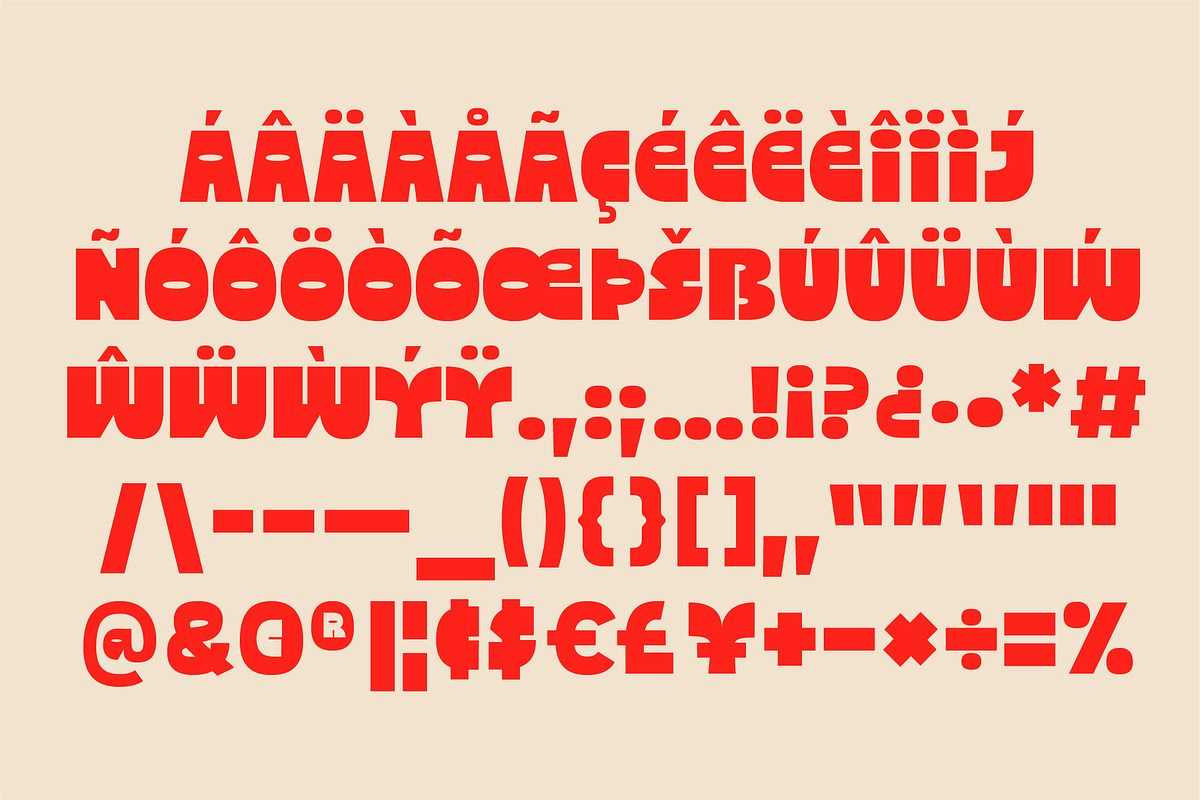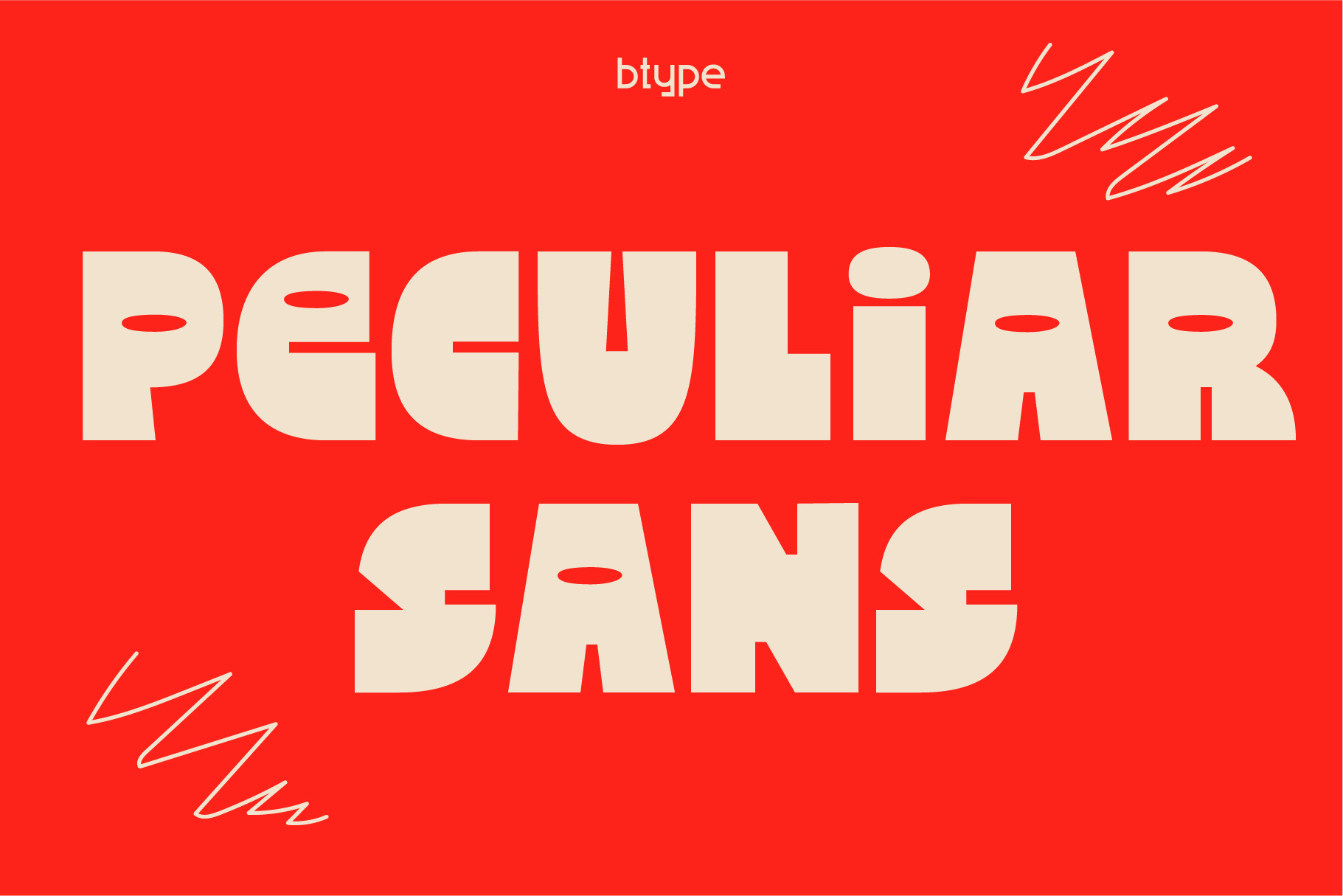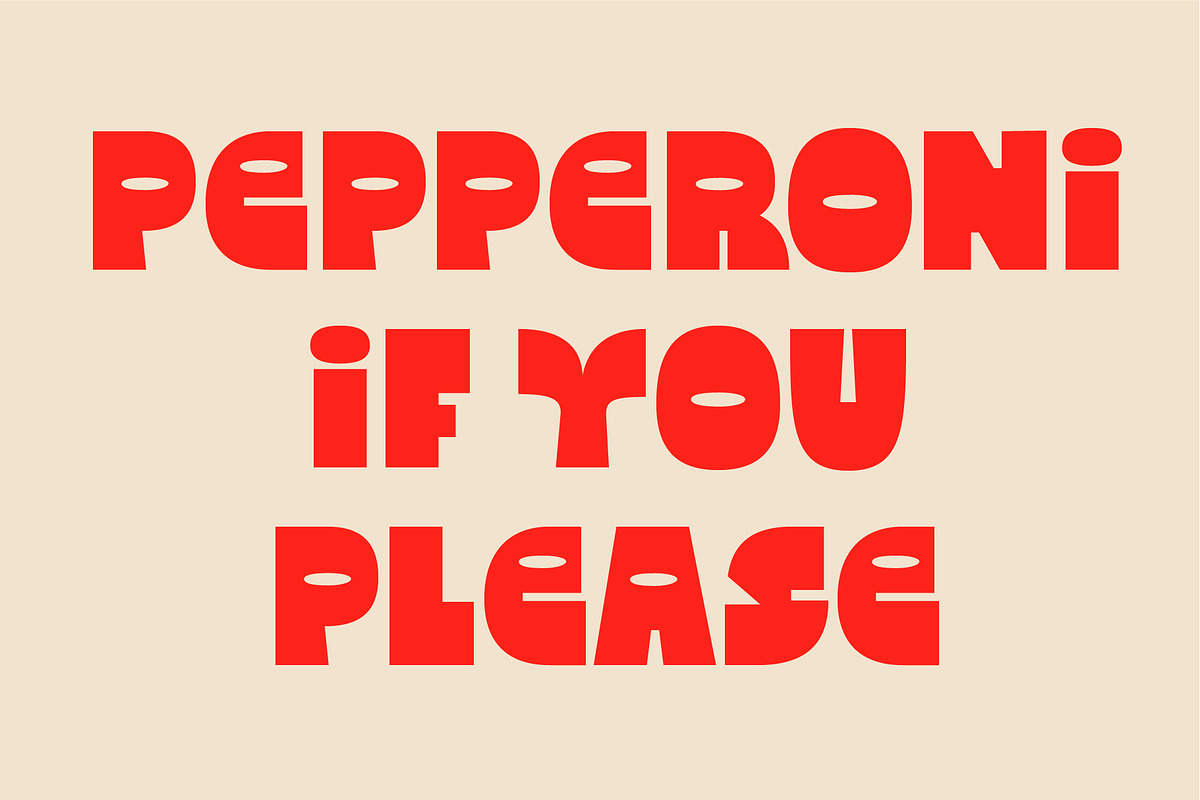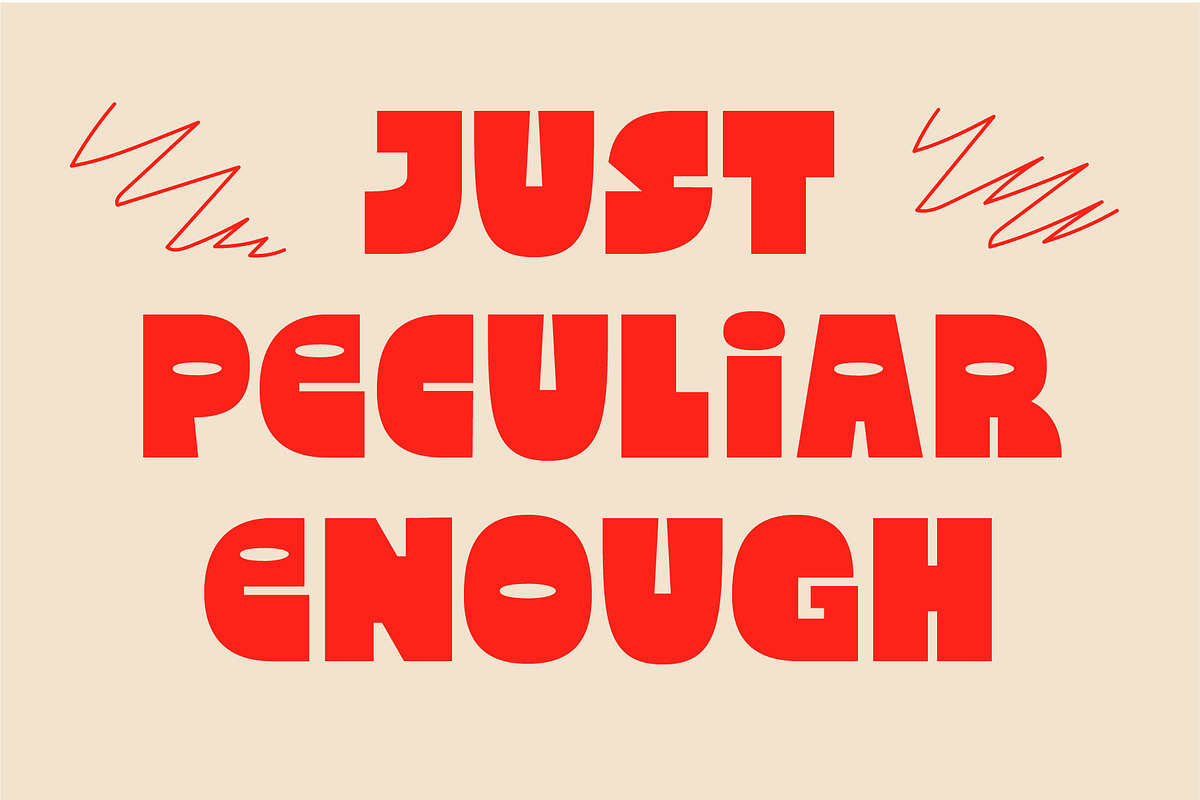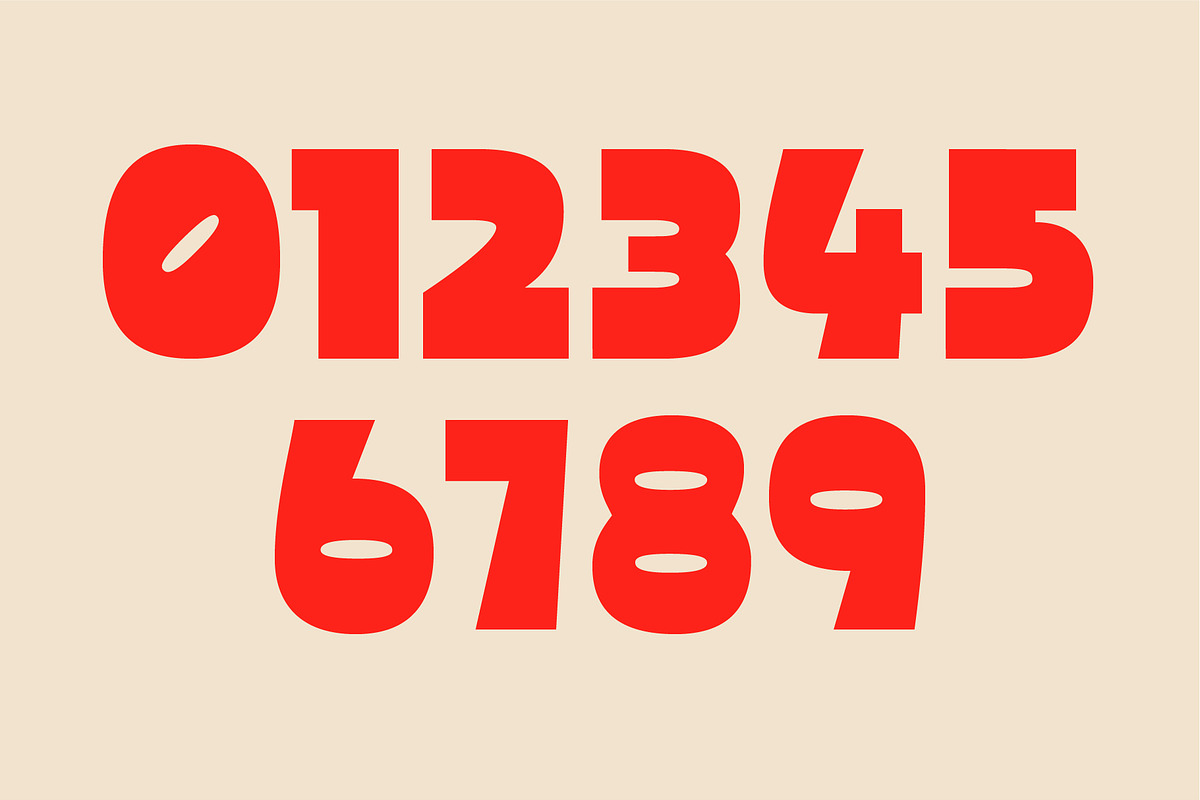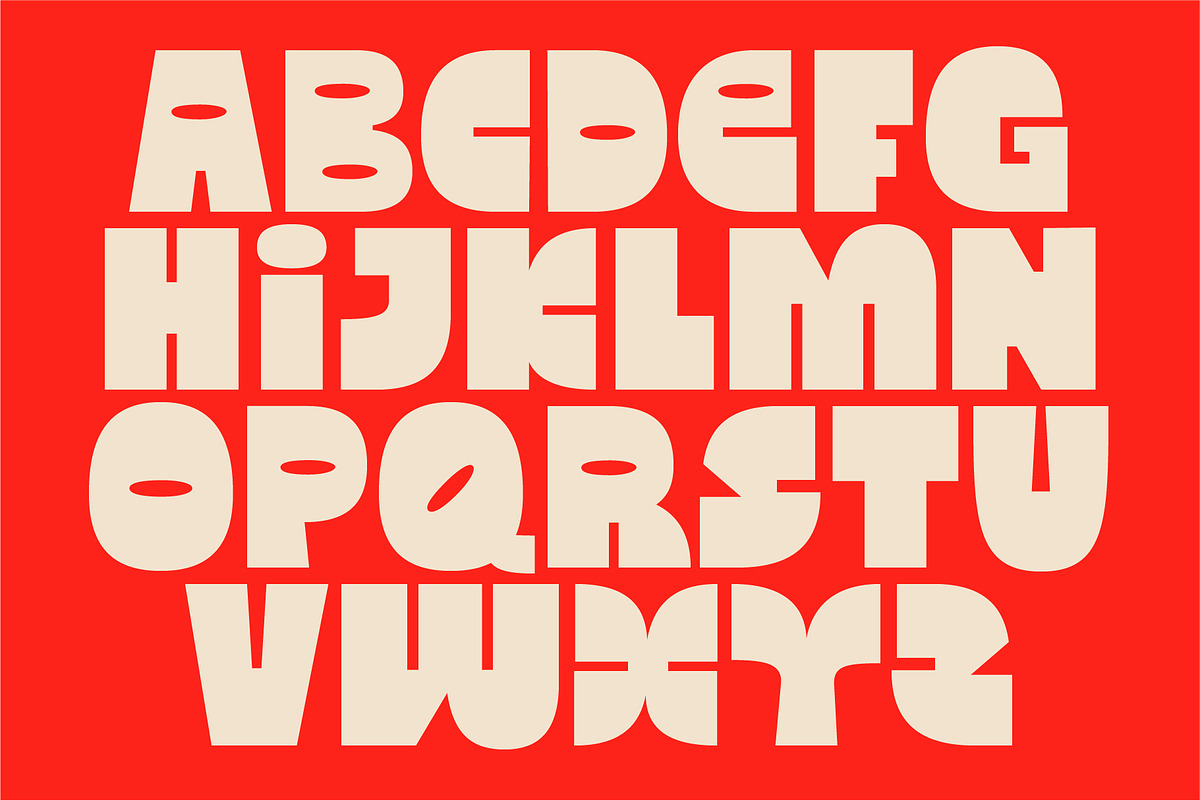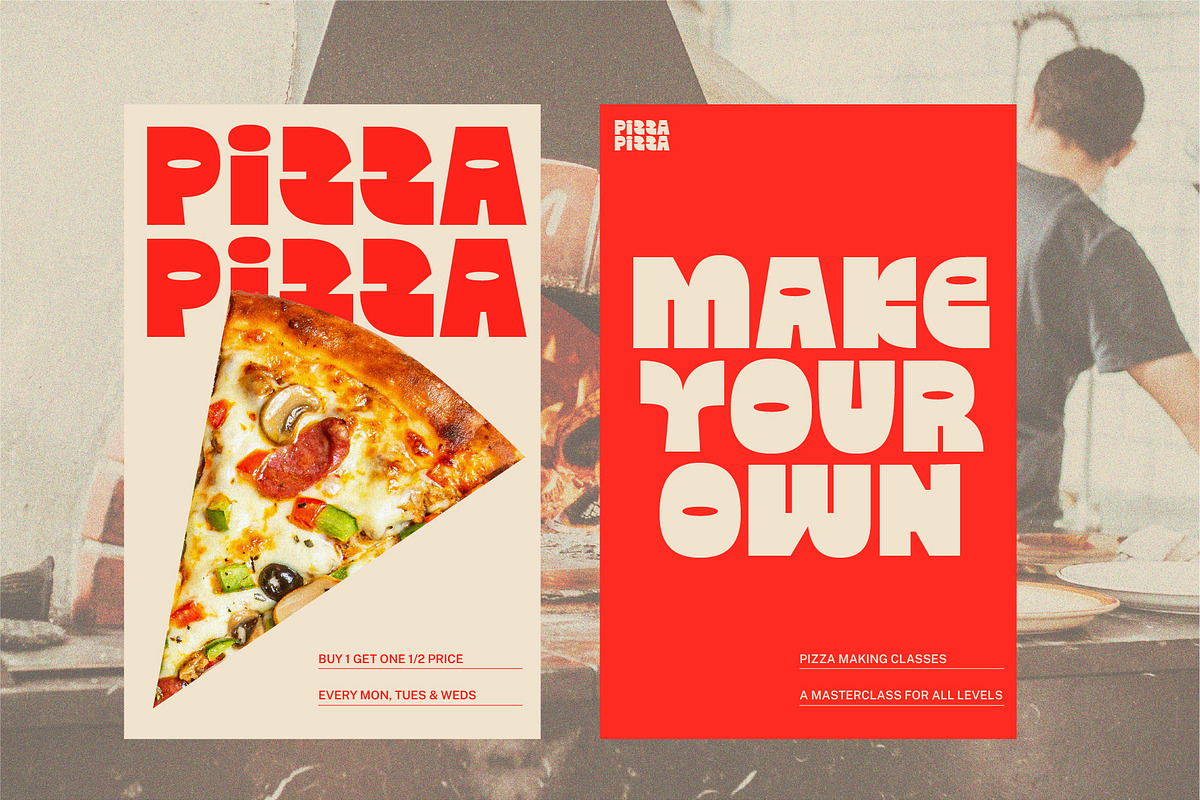
Peculiar Sans - Chunky Display Font
A chunky, uppercase sans serif display font with a playful edge.
This font is designed to feel bold, friendly, and slightly quirky — perfect for when you want to make a strong impact! It works especially well for packaging, posters, social graphics, headlines, logos and branding that needs personality but still feels considered.
The shapes are confident and punchy, with subtle quirks that keep things human and fun. It pairs well with clean text fonts and shines at larger sizes.
Uppercase display font
Chunky, bold sans serif style
Clean but playful character
Great for
Branding & logos
Posters & headlines
Packaging
Editorial & social media graphics
Merch, signage, and campaigns
This font is ideal if you’re looking for something bold, approachable, and modern, without losing charm.